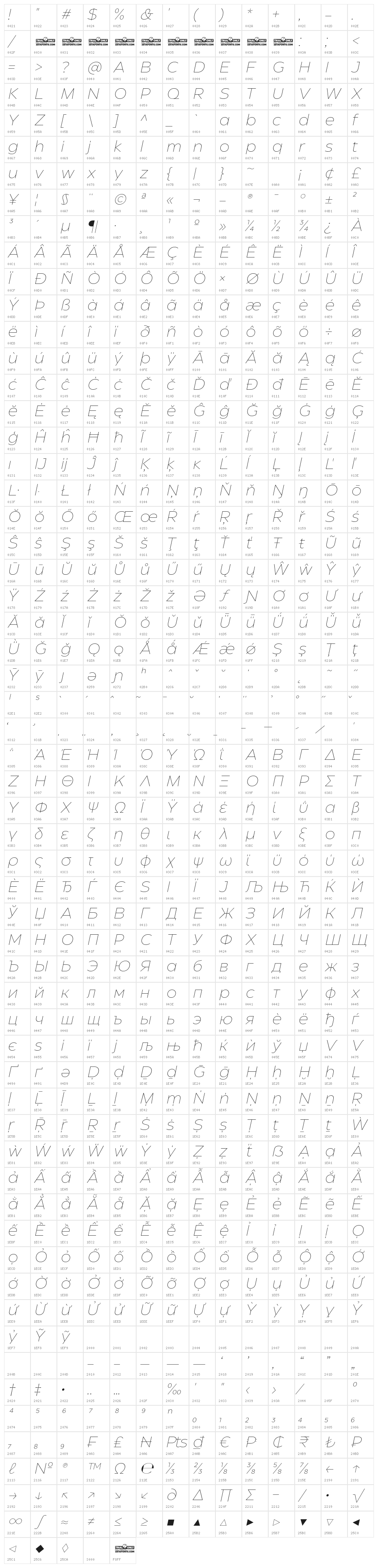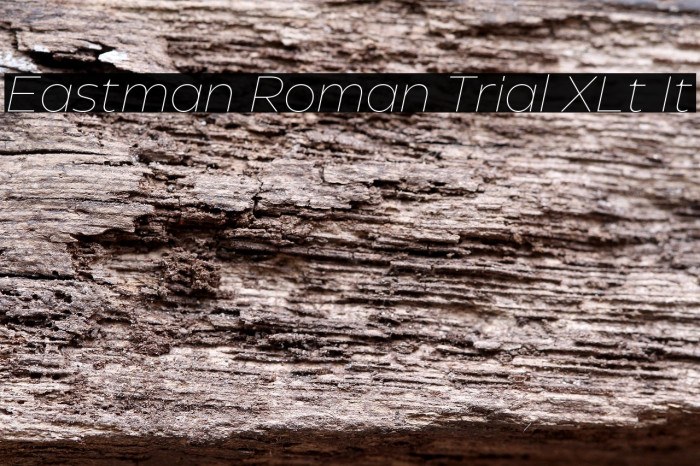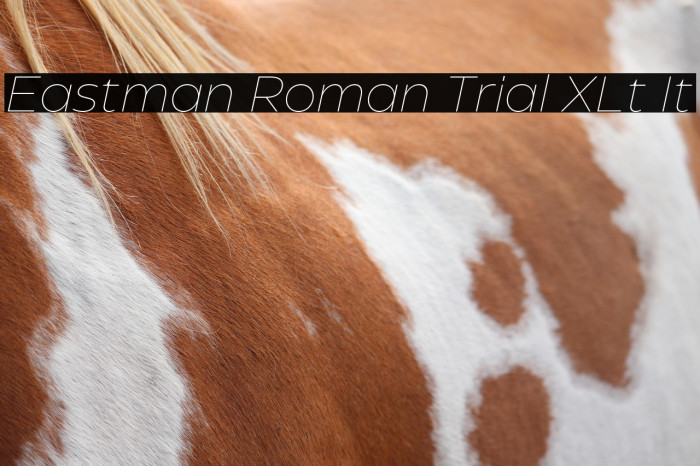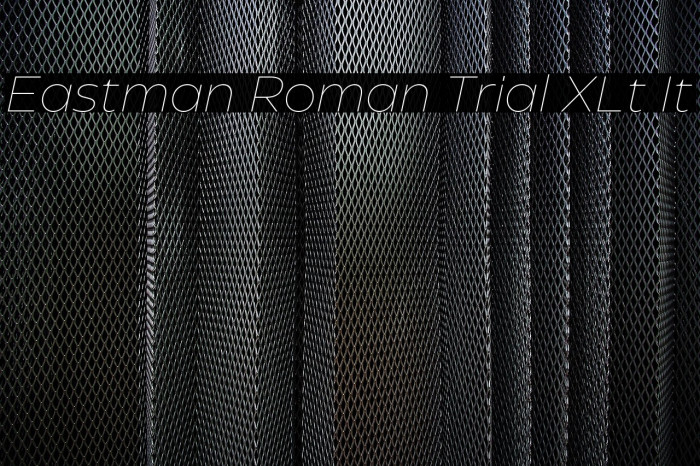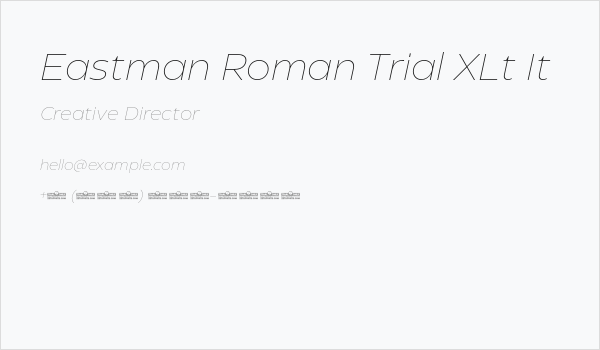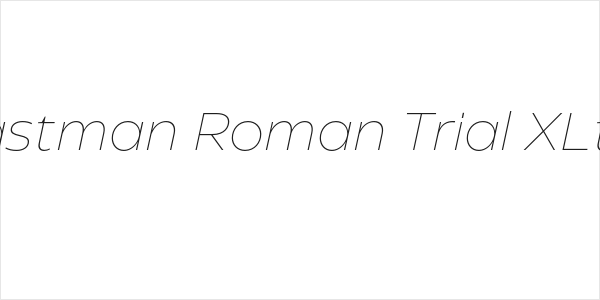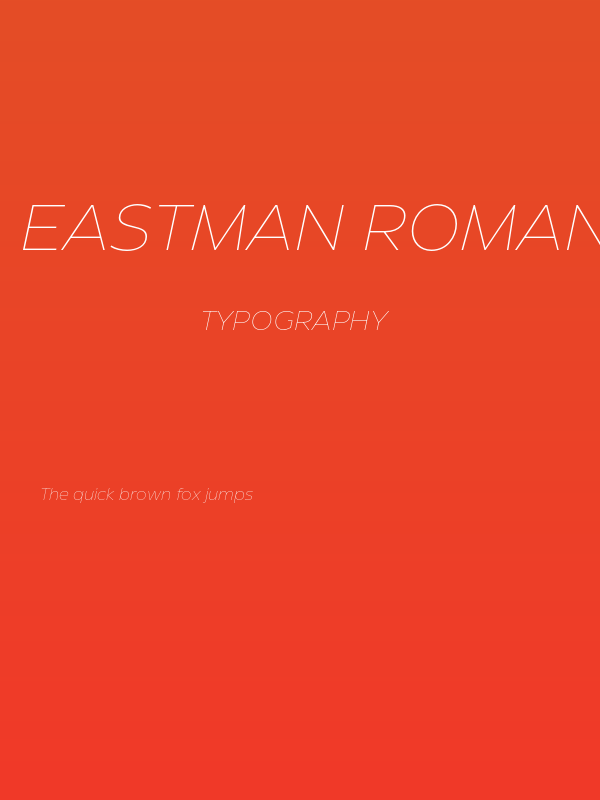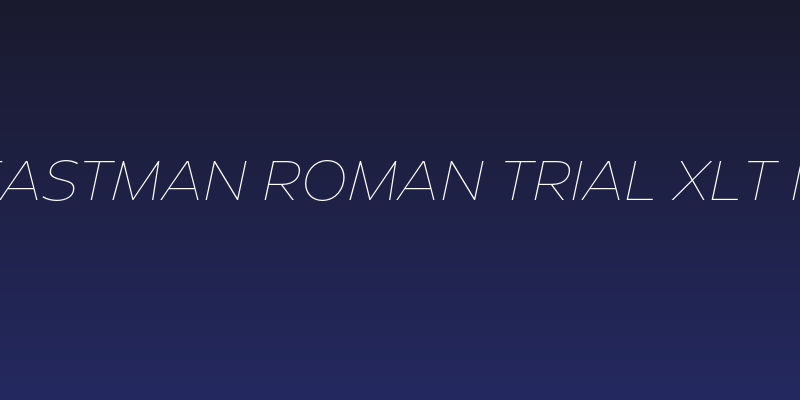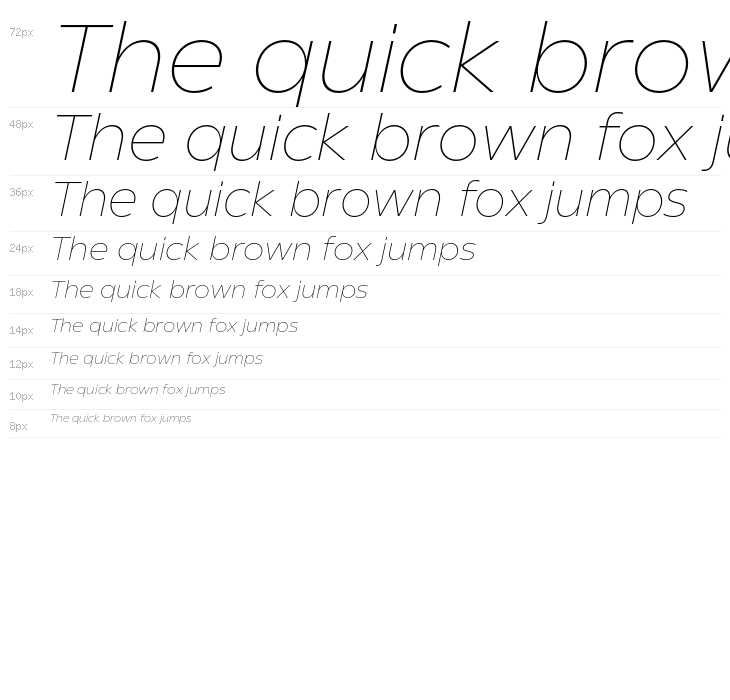
Eastman Roman Trial XLt It Font
Eastman Roman Trial XLt It Description
This font features a sleek and modern design with clean, thin lines that convey a sense of elegance and sophistication. The characters are slightly italicized, adding a dynamic and forward-moving appearance. The uppercase and lowercase letters maintain a consistent style, with smooth curves and minimalistic details. The numerals and special characters are designed to complement the overall aesthetic, ensuring uniformity across all glyphs. This font's simplicity and clarity make it highly versatile for various design applications.
Proposed ProjectsIdeal for branding, editorial design, and digital interfaces where a modern and elegant look is desired.